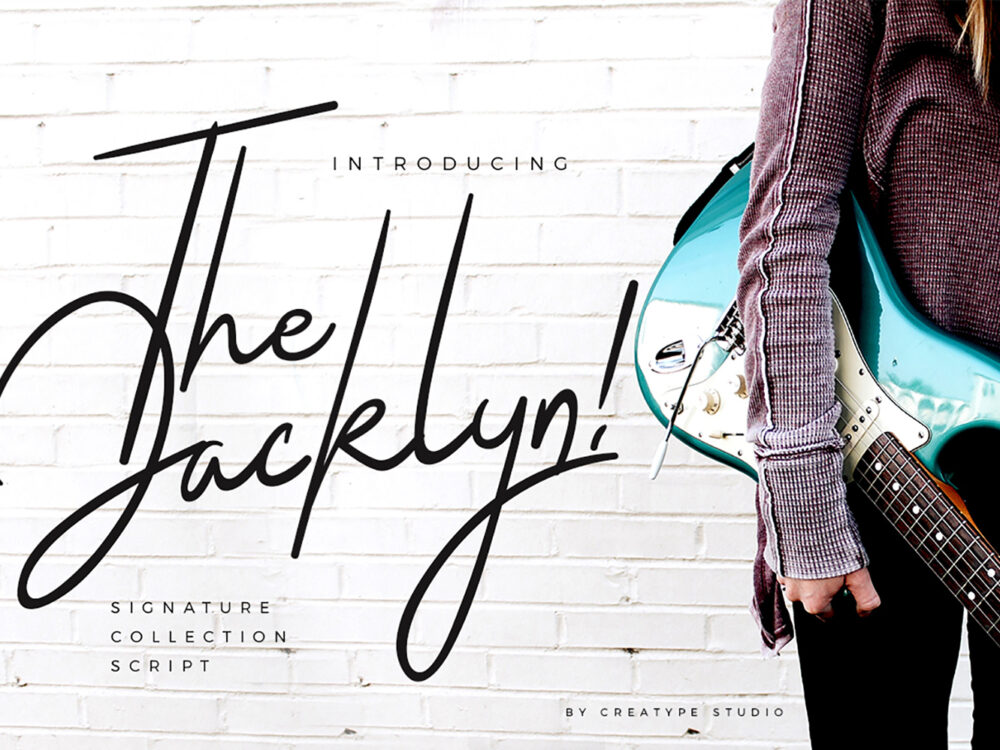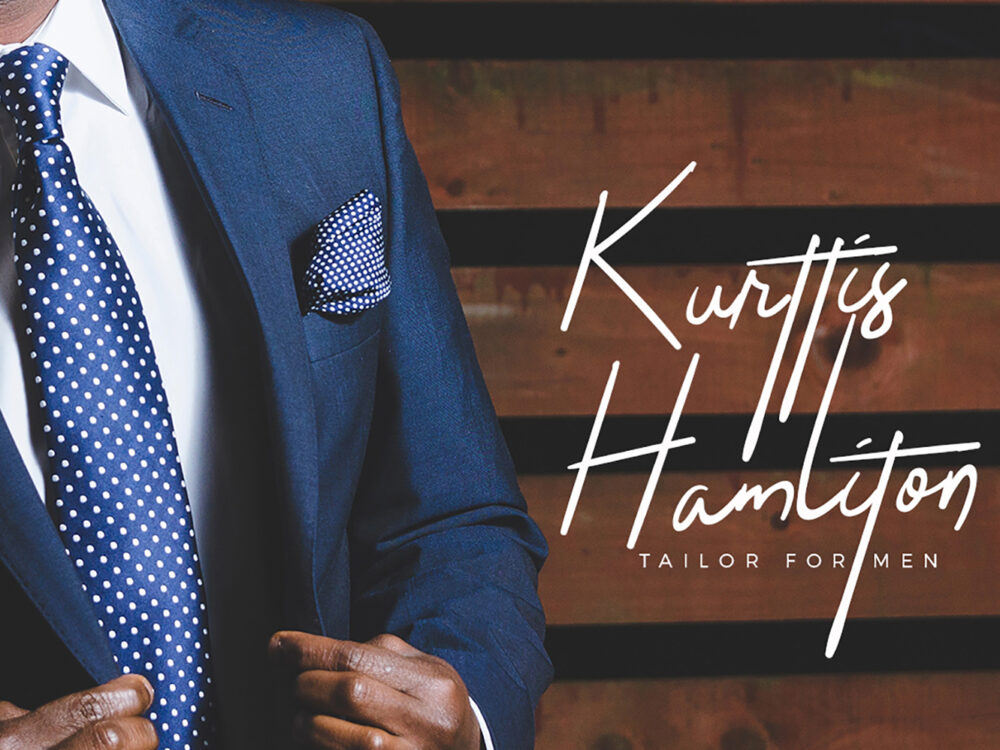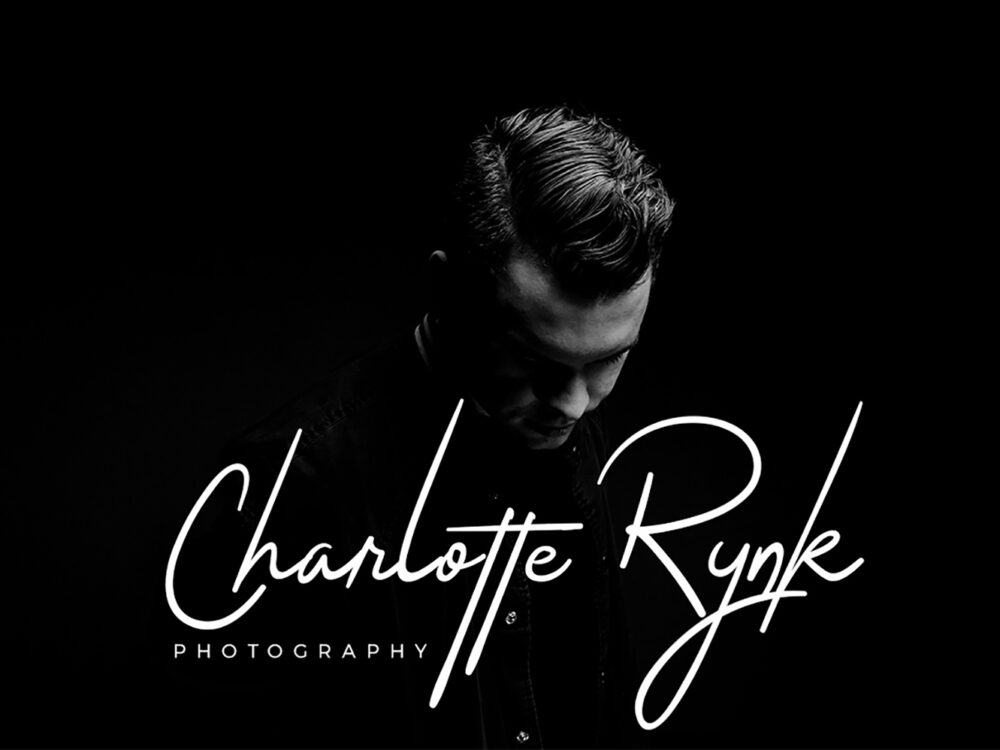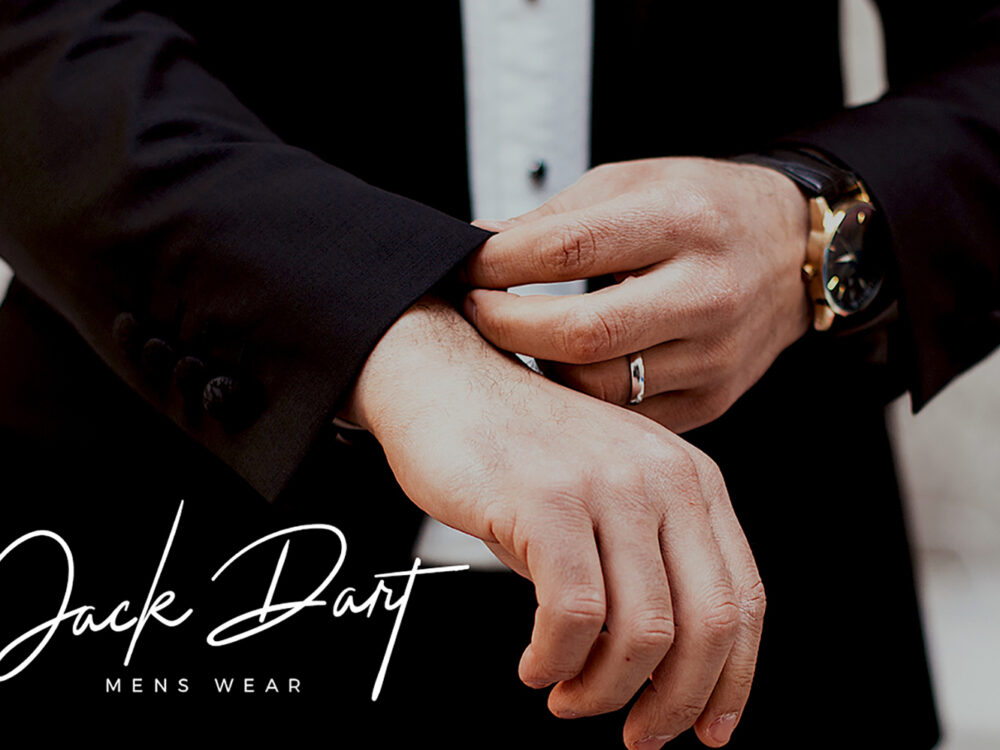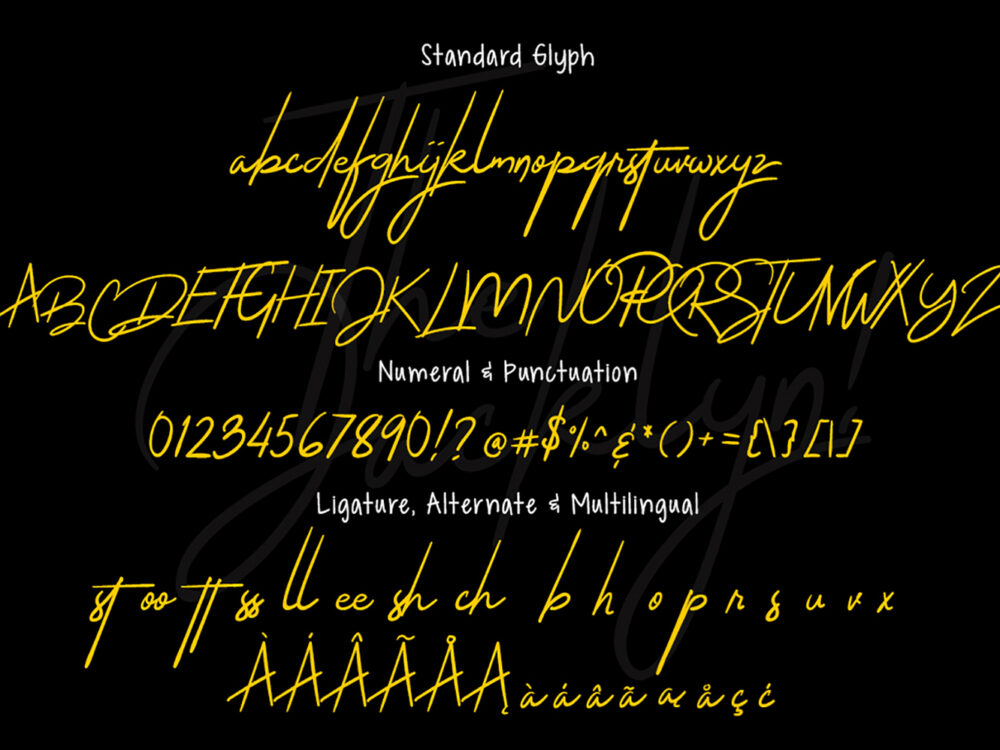
The Jacklyn Signature Free Font
If you are looking for a modern handwritten typeface with thinned lines then The Jacklyn Signature Free Font is perfect for you. Use this font to create memorable posters, invitations, cards, and more. If you like it don’t forget to check out the full version.